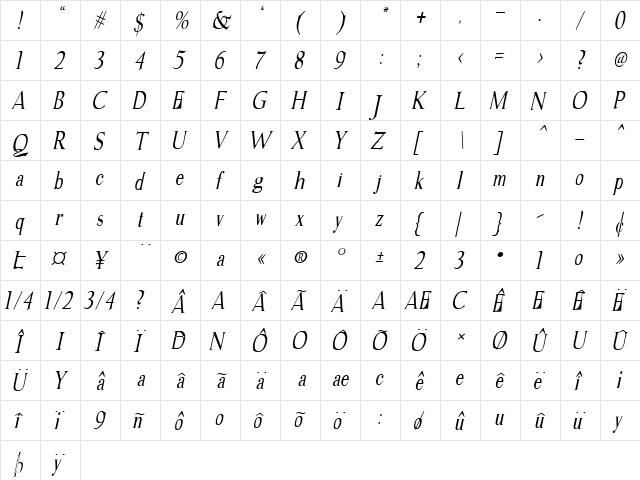
Gudvayne Regular
Regular · Degi Kurniawan Degi Kurniawan ·
Design Context for Gudvayne Typeface
Gudvayne offers clean, dependable letterforms without strong stylistic allegiance, making it a practical choice for designers who need flexibility.